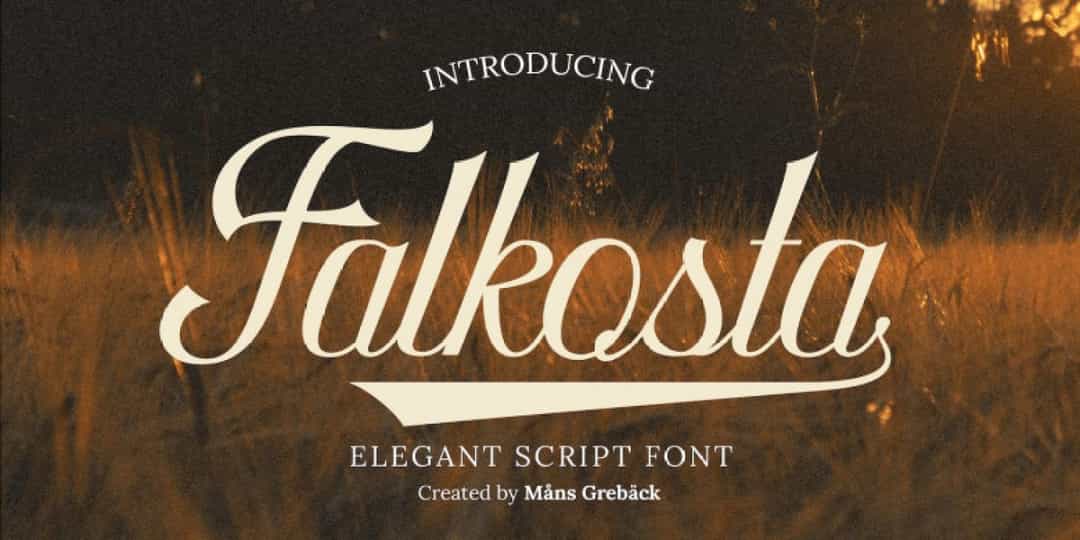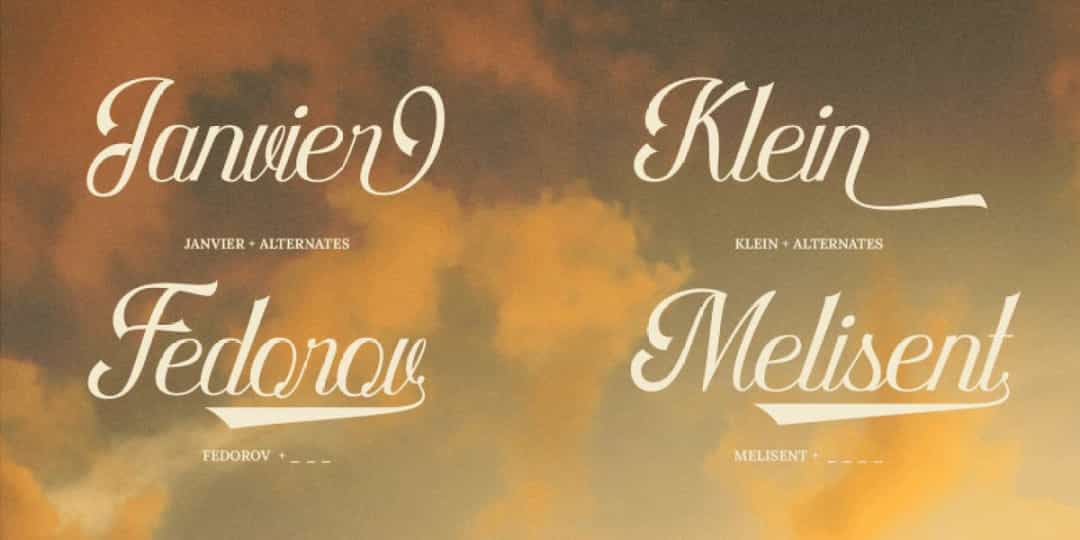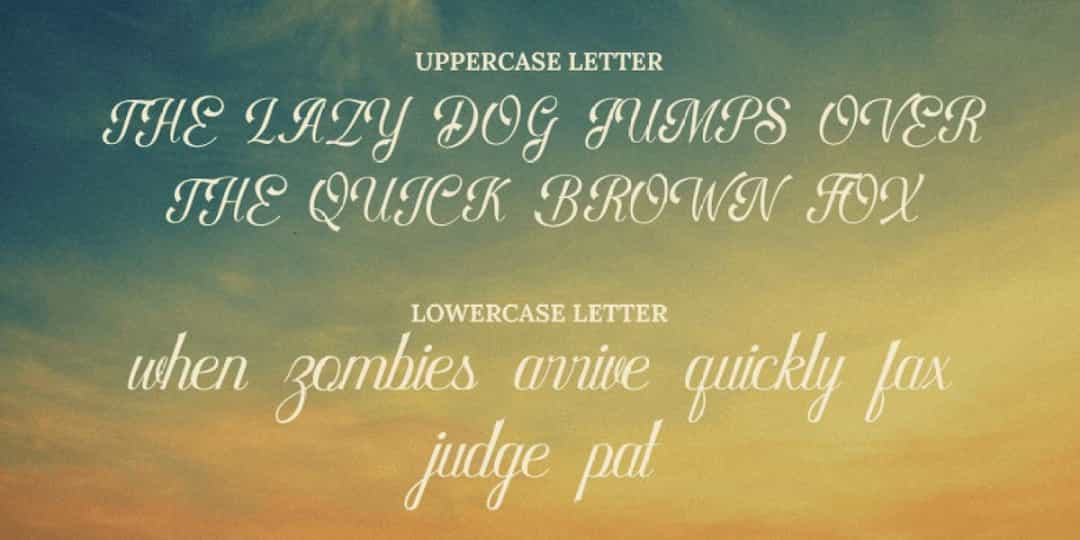
Falkosta is handmade calligraphy font, created by Mans Greback in 2022, features fine and elegant lines with distinctive base lines, elegant and classic details, as well as distinctive curves for added character.